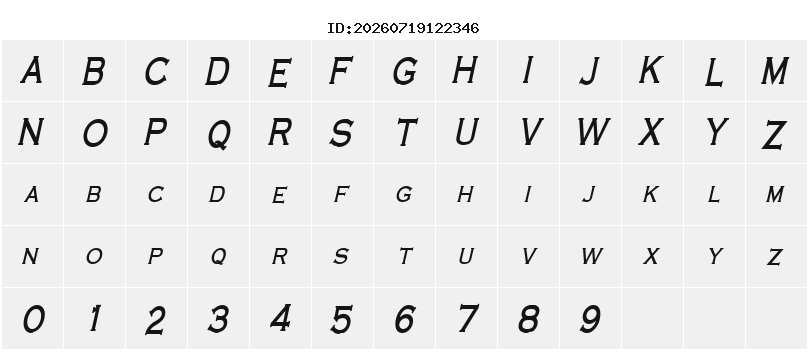
Cobalt Thin Preview
• Font Name: Cobalt Thin
About Cobalt Thin.ttf
Cobalt Thin.ttf is a modern, elegant sans-serif font designed for ultimate readability and visual harmony. Perfect for branding, headlines, web design, and print materials.